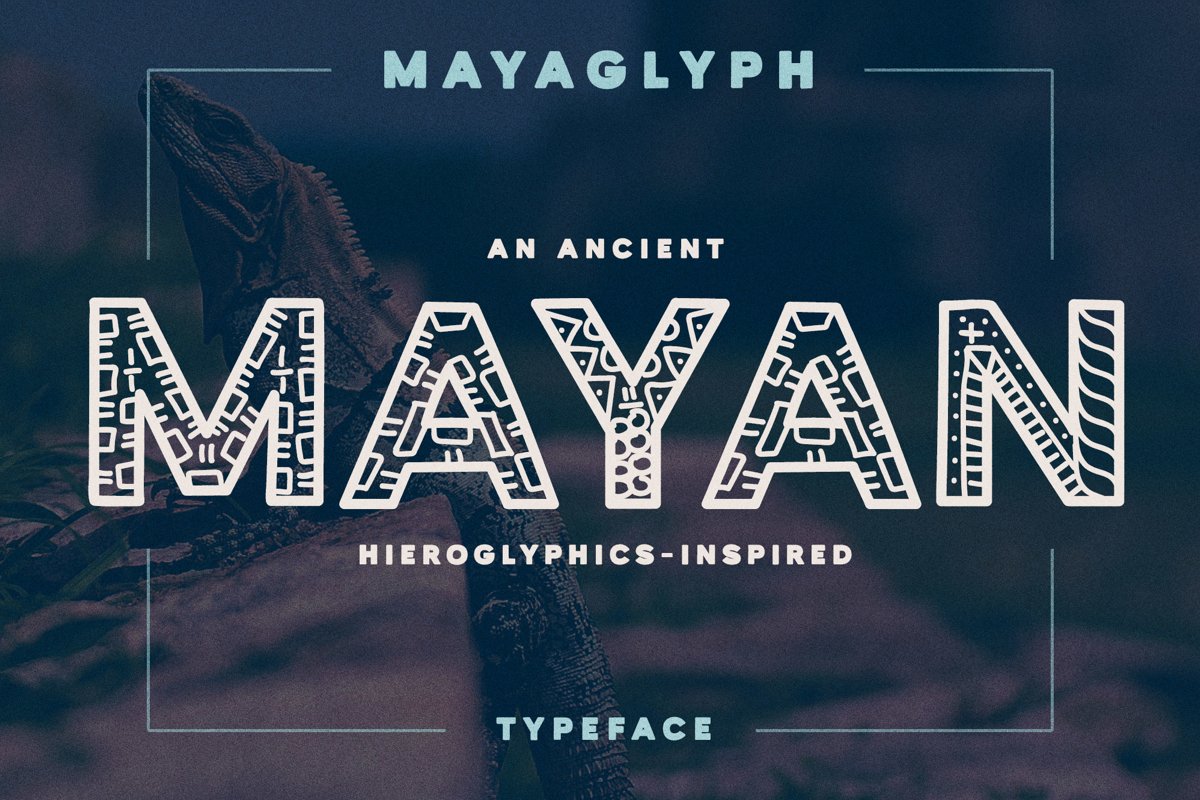
Mayaglyph - Aztec Pattern Font
Mayaglyph-Solid
Mayaglyph-Outline
Introducing Mayaglyph, a modern typeface inspired by the ancient symbols left behind by the
Mayan civilization. Every manually created character in Mayaglyph was based on symbols and heiroglyphics found in Mayan ruins.
Each character in Mayaglyph is distinctly imperfect in its own way, just as if it was taken right off an indigenous aztec stone. Also included is a 'solid' background version, which is ideal for creating beautiful multi-layer designs.
• Hieroglyphics 'outline' font
• 'Solid' background font